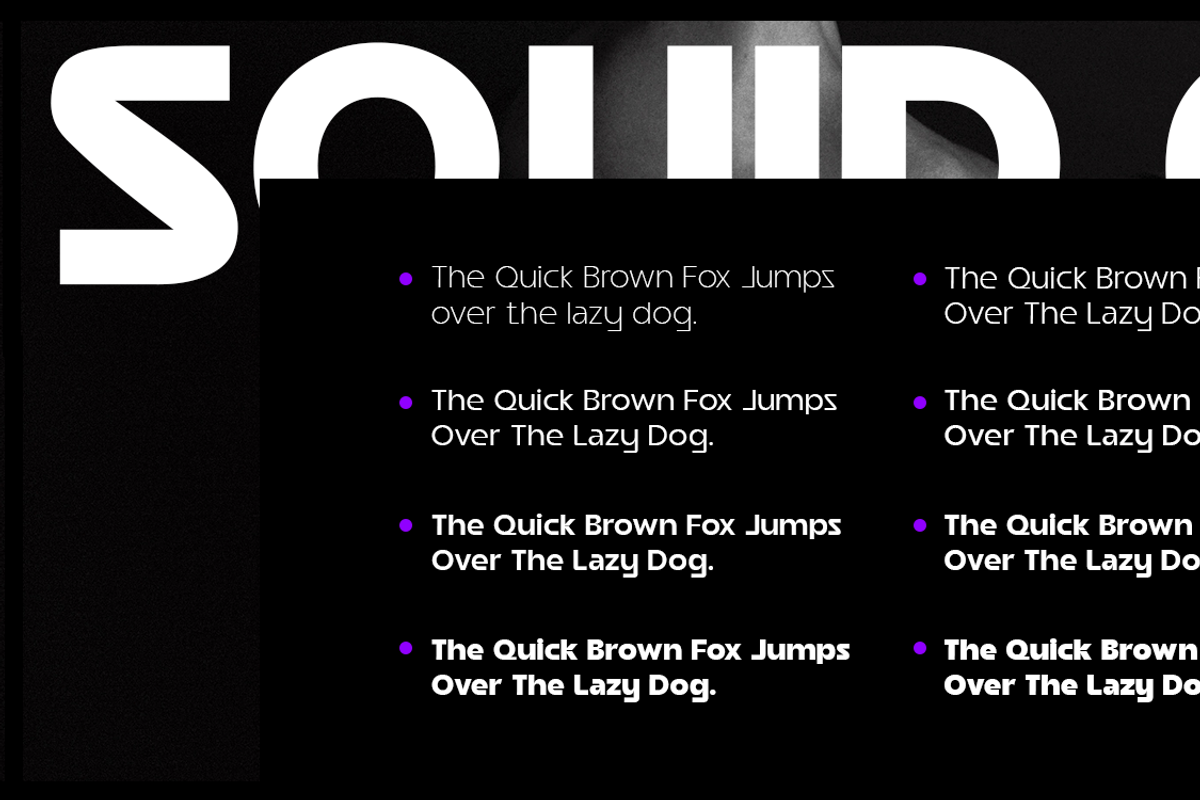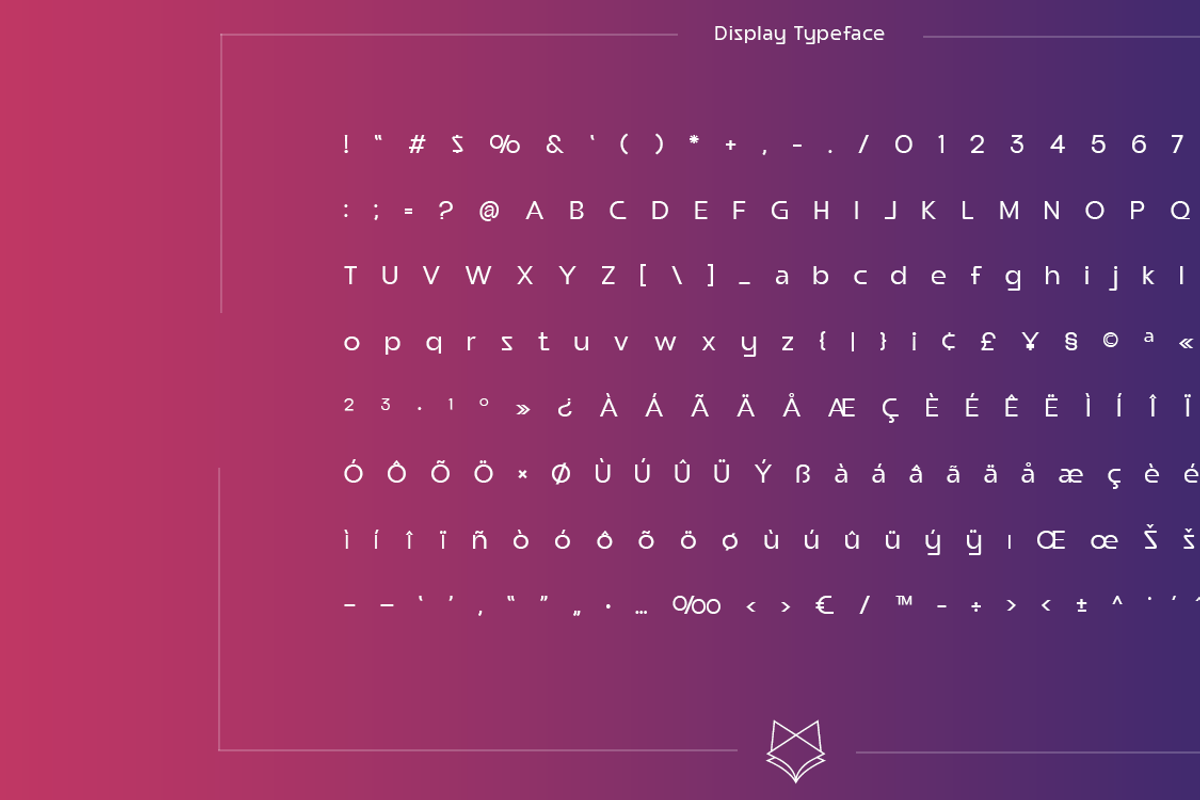
Squid GT Display
Introducing Squid GT Display new generation Typeface with 9 Weights. Squid GT Typeface created with the vision of to attract the audience to your brand . The finest details of this typeface are methodically and mathematically created. Squid GT is created with all the tasks of a corporate font and also for the usage in a variety of projects, including branding, logos, titles, headlines, servers, posters, screens, display, digital ads, and everything else.
We are putting a lot of effort on this font as a long-term project. The Typeface includes Nine Weights. Thin, ExtraLight, Light, Regular, Medium, SemiBold, Bold, ExtraBold, Black.